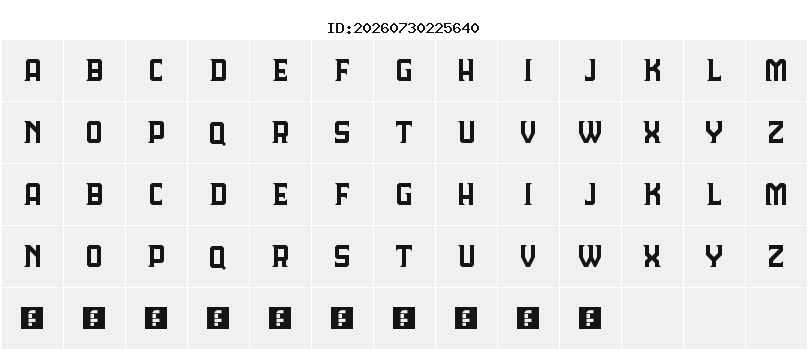
• Font Name: Lorde Havana
• Designer: jjdub
• Description: ‚ÄúLorde Havana‚Äù was built with FontStruct
About Lorde Havana.ttf
Lorde Havana.ttf is a modern, elegant sans-serif font designed for ultimate readability and visual harmony. Perfect for branding, headlines, web design, and print materials.